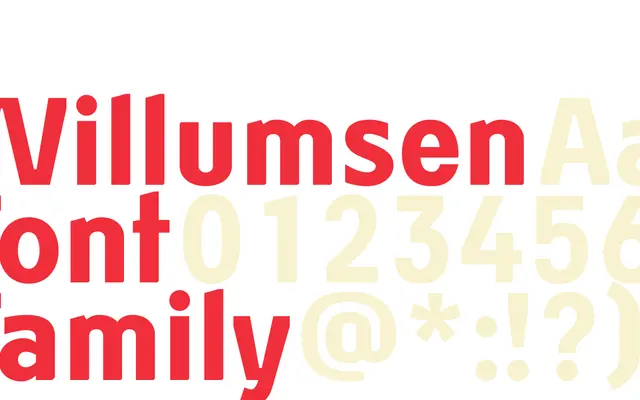
Willumsen specimen from Playtype
A display typeface from Playtype with a literary, editorial character suited to expressive headline work.
Released by Copenhagen foundry Playtype, Willumsen is positioned around a literary and dramatic sensibility, with the promotional copy evoking character, story and direction. The minimal page content makes detailed technical assessment difficult, but the typeface appears aimed at editorial and cultural contexts where a strong typographic voice is needed. Playtype's wider catalogue leans towards considered, Scandinavian-inflected design.
The page content is minimal and does not provide explicit classification details, but the name and Playtype's editorial focus suggest a display-oriented serif typeface designed for expressive, large-scale use.